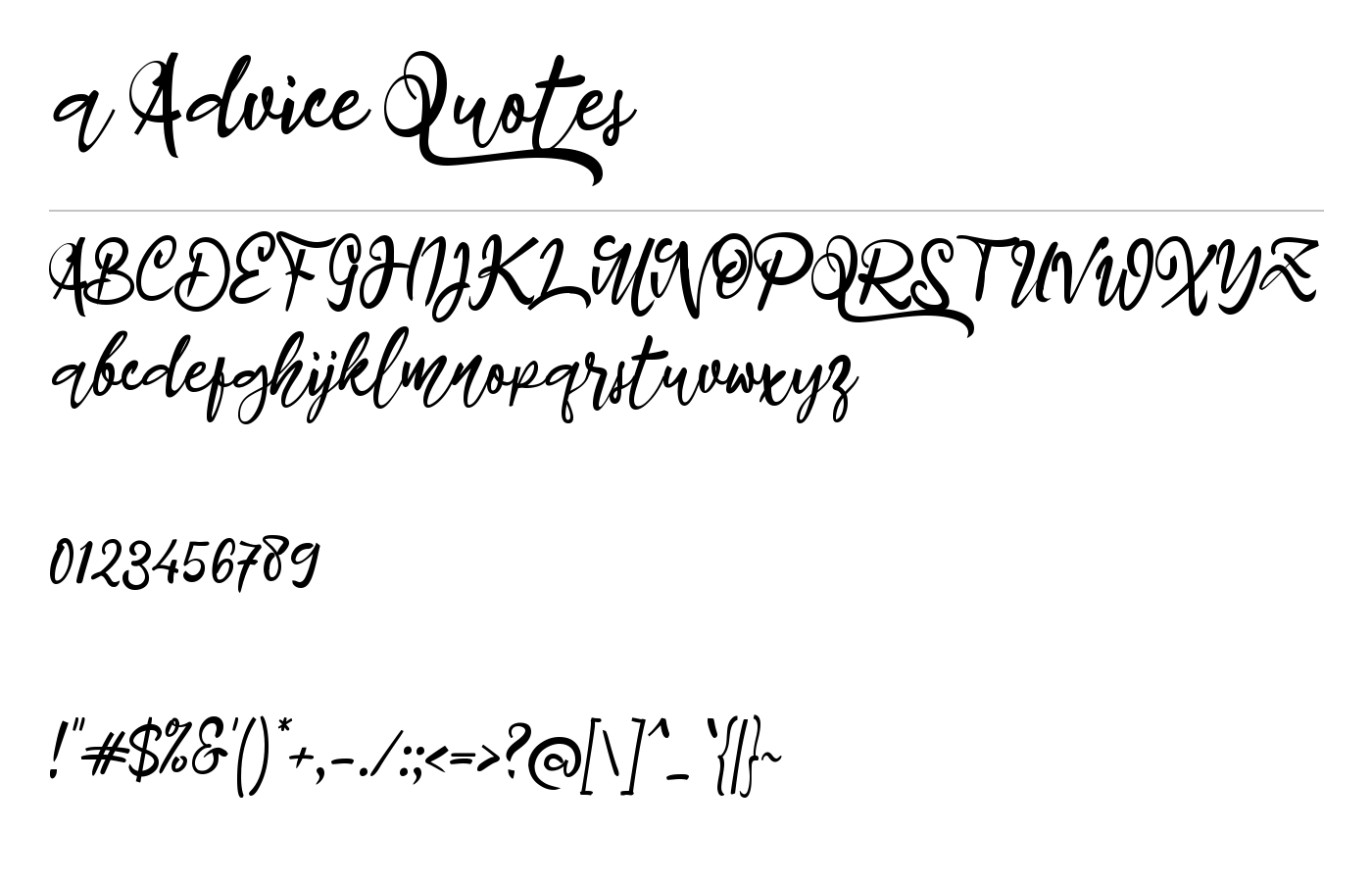
a Advice Quotes is a lively and elegant script font characterized by its fluid, hand-drawn strokes and playful swashes, especially notable in the uppercase letters. Its moderate weight and smooth curves give it a friendly yet sophisticated feel, making it ideal for creative branding, invitations, and expressive headlines where a personal, artistic touch is desired. This font works beautifully when you want to add charm and warmth to your design without losing readability.
a Advice Quotes Font
About a Advice Quotes Font